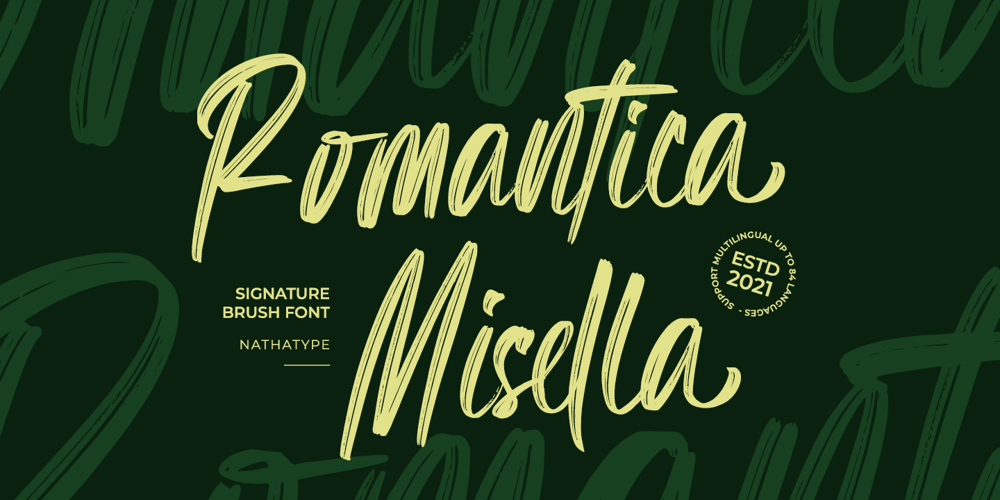
Romantica Misella
Romantica Misella font
Romantica Misella Font Family was designed by Donis Miftahudin and published by Nathatype. Romantica Misella contains 1 styles and family package options. Wanna make your branding spark? Are you seeking a creative way to express your designs in quaint handwriting? If so, you’ve found your perfect font.Romantica Misella – A Signature Brush FontRomantica Misella is a cursive handwritten font combined with brush style designed elegantly and gracefully. Beautiful, cozy, casual, yet neat enough to be used for various purposes. The best choice for your logo, book cover, poster, t-shirt, branding, and advertisement needs.Features: Ligatures Alternates PUA Encoded Numerals and Punctuation Thank you for downloading premium fonts from Nathatype